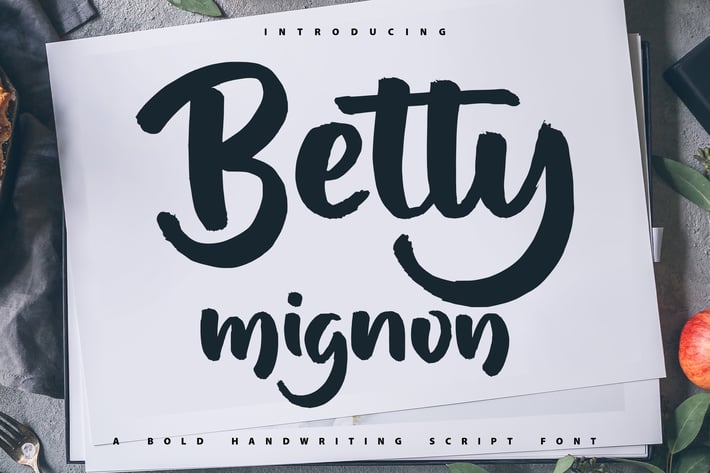
Betty Mignon | Bold Handwriting Script Font
Betty Mignon | Bold Handwriting Script Font with a calligraphy style, So beautiful on invitation like greeting cards, branding materials, business cards, quotes, posters, and more!